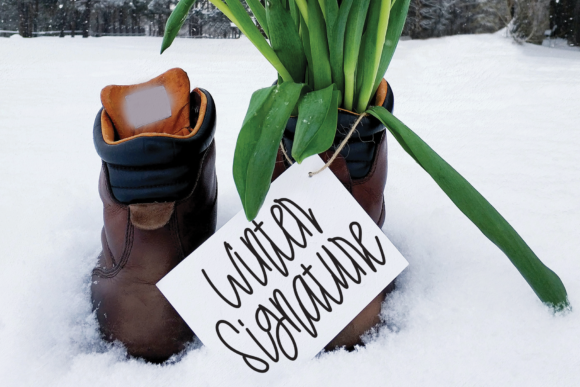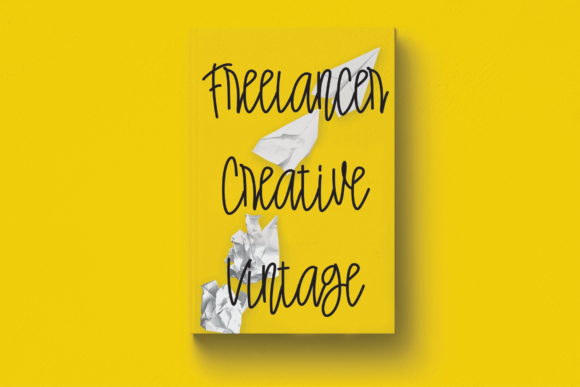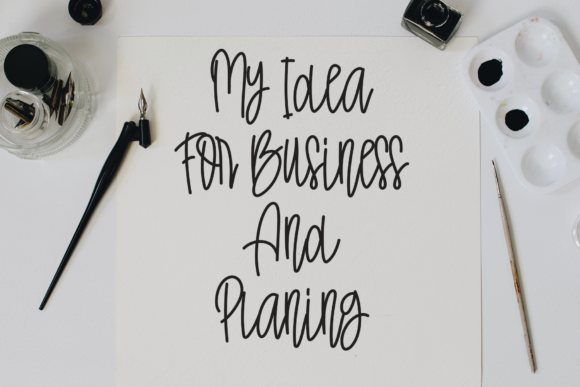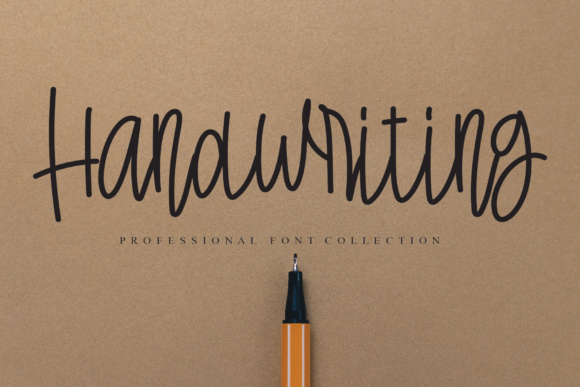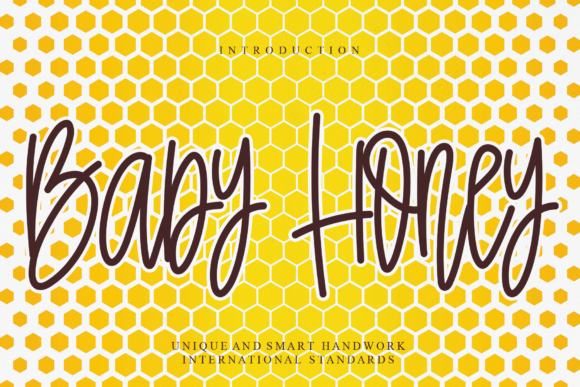
Baby Honey Font: The Ultimate Guide to this Cool, Relaxed, and Casual Handwritten Font
Are you a designer or crafter looking for a font that can elevate your creations and add a touch of personality to your projects? Look no further than the Baby Honey Font! This cool, relaxed, and casual handwritten font is perfect for a wide range of applications, from branding and advertising to crafting and DIY projects. In this article, we’ll take a closer look at the Baby Honey Font, its features, and how you can use it to take your designs to the next level.
What is Baby Honey Font?
Baby Honey Font is a beautifully designed handwritten font that exudes a sense of calmness and relaxation. Its casual and laid-back vibe makes it perfect for designers and crafters who want to add a personal touch to their projects. The font features smooth, flowing lines and a subtle texture that gives it a organic and natural feel.
Key Features of Baby Honey Font
So, what makes Baby Honey Font so special? Here are some of its key features:
- Cool and Relaxed Vibe: Baby Honey Font has a unique and refreshing vibe that sets it apart from other fonts. Its casual and laid-back feel makes it perfect for designs that require a relaxed and friendly tone.
- Handwritten Style: The font features a beautiful handwritten style that gives it a personal and organic feel. The smooth, flowing lines and subtle texture make it look like it was written with a pen or pencil.
- Versatile: Baby Honey Font is incredibly versatile and can be used for a wide range of applications, from branding and advertising to crafting and DIY projects.
- Easily Readable: The font is designed to be easily readable, even at small sizes. This makes it perfect for body text, headings, and titles.
How to Use Baby Honey Font in Your Designs
Now that we’ve covered the features of Baby Honey Font, let’s talk about how you can use it in your designs. Here are some ideas to get you started:
- Branding and Advertising: Use Baby Honey Font to create unique and eye-catching branding materials, such as logos, business cards, and brochures.
- Crafting and DIY Projects: Add a personal touch to your crafting and DIY projects, such as handmade cards, gift tags, and scrapbooking pages.
- Social Media Graphics: Use Baby Honey Font to create engaging social media graphics, such as Instagram posts, Facebook covers, and Twitter headers.
- Web Design: Use Baby Honey Font as a heading or body font on your website to add a touch of personality and whimsy.
Tips and Tricks for Working with Baby Honey Font
Here are some tips and tricks to help you get the most out of Baby Honey Font:
- Pair it with Other Fonts: Experiment with pairing Baby Honey Font with other fonts to create a unique and interesting contrast.
- Use it in Combination with Images: Use Baby Honey Font in combination with images to add a touch of personality and whimsy to your designs.
| Font Name | Baby Honey Font |
| Author | Inspekelement.ST |
In conclusion, Baby Honey Font is a cool, relaxed, and casual handwritten font that is perfect for designers and crafters who want to add a personal touch to their projects. Its versatile and easily readable design makes it suitable for a wide range of applications, from branding and advertising to crafting and DIY projects. With its unique and refreshing vibe, Baby Honey Font is sure to elevate your designs and take them to the next level.